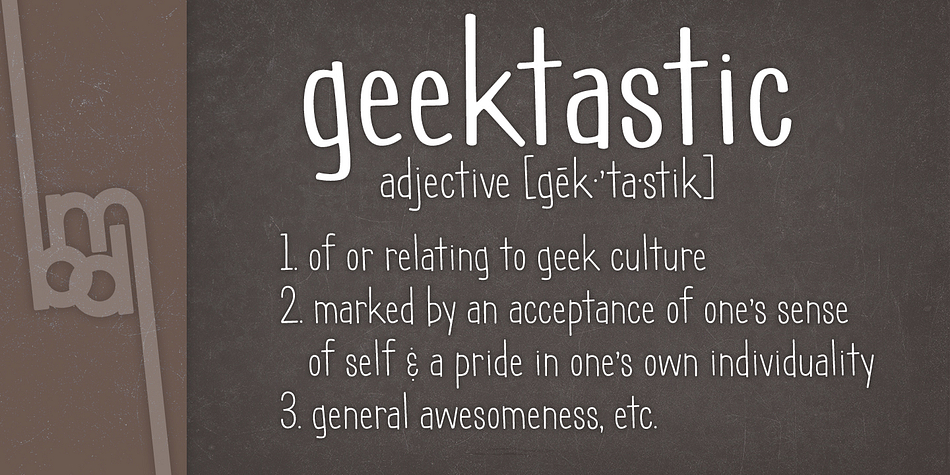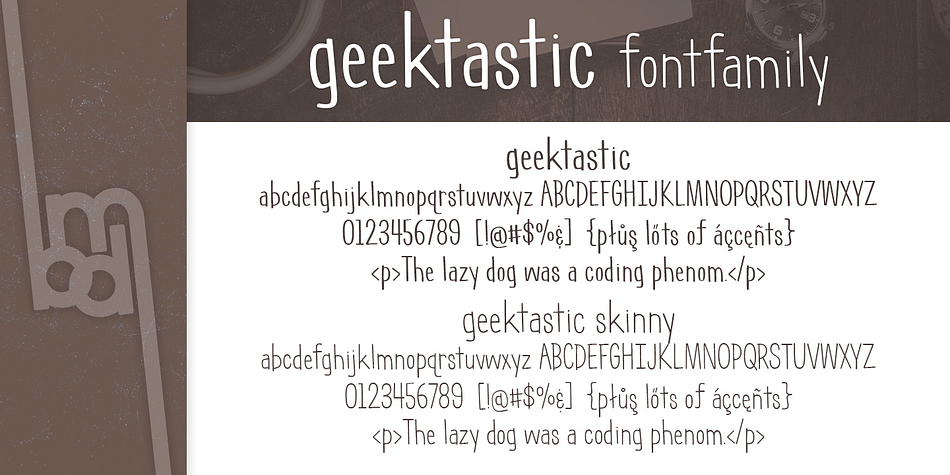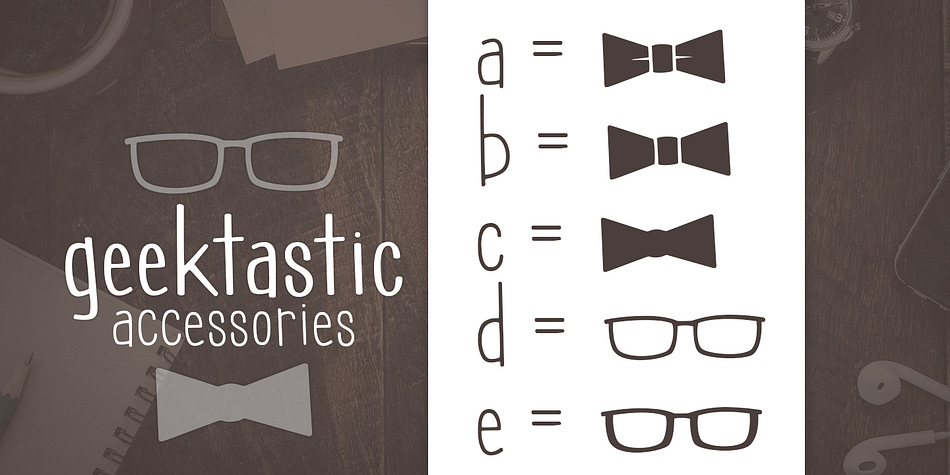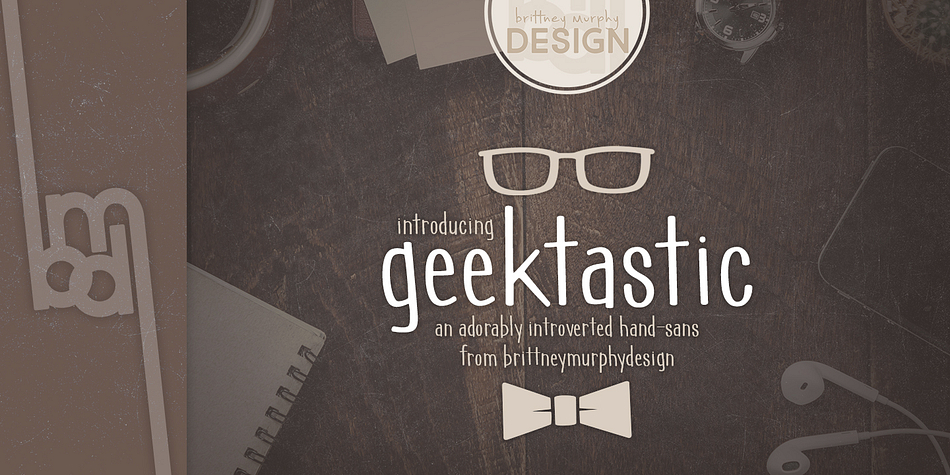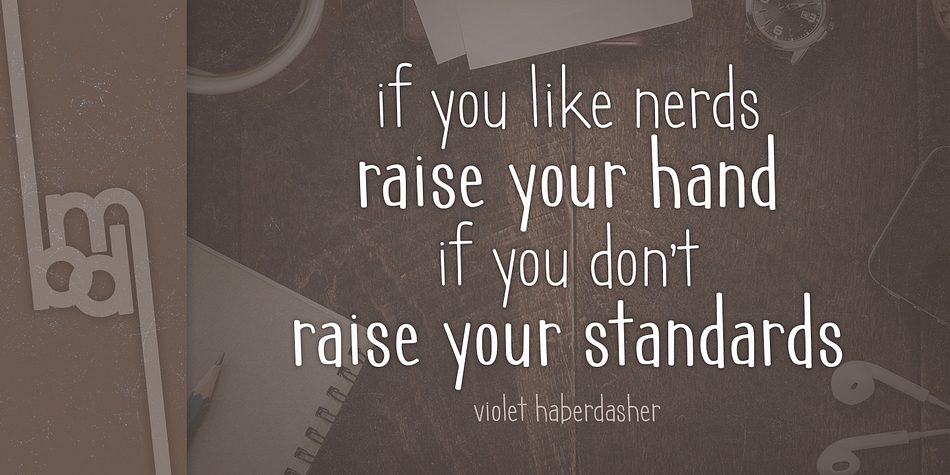
Geektastic is a dingbat and hand drawn font family. This typeface has three styles and was published by Brittney Murphy Design.
Geektastic is a tall and lanky, adorably introverted hand-sans in two weights- regular and skinny. It’s quirky, yet understated, and even comes with an Accessories Dingbat font with five characters- 3 bowties and two sets of glasses.
Includes 366 characters, with lots of accented letters.